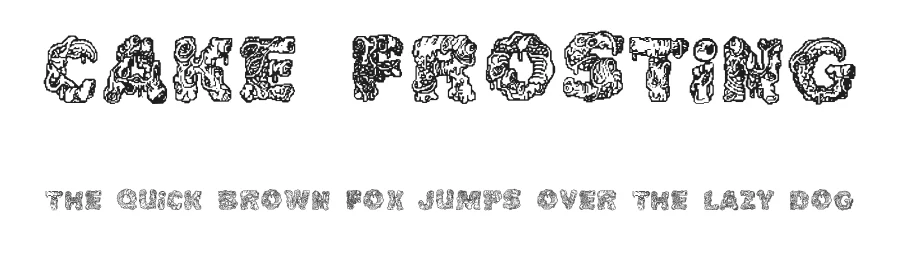
About PopCornFont
PopCornFont is a decorative font designed by RiveOne. It includes 56 glyphs, a regular weight, OTF (CFF) format, and 98 languages. PopCornFont is free to download; check the license details on this page before commercial use. Decorative fonts like PopCornFont work best for logos, posters, packaging, and standout headlines.
PopCornFont is a decorative font that shines as a display or heading face. Pair it with a clean sans-serif or serif font for body text β the contrast creates a clear hierarchy while the two styles stay balanced and easy to read.
PopCornFont
by RiveOne
PopCornFont is a decorative typeface by RiveOne, ideal for logos, invitations, branding, and creative projects.